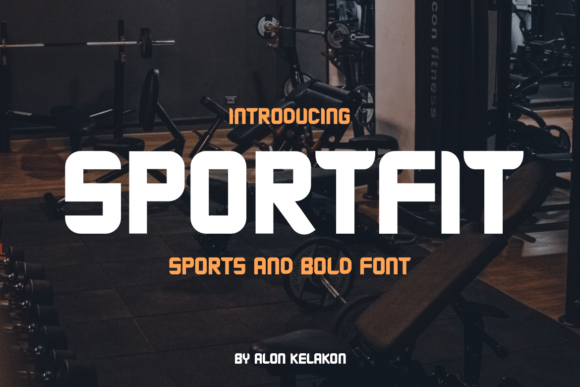
Explore the World of Sportfit Font: The Epitome of Boldness and Assertiveness
Embark on a typographic journey with Sportfit Font, a sans serif font that exudes boldness and assertiveness. Crafted by the skilled hands of alonkelakon, this font is not just a collection of letters; it's a statement of confidence and individuality. Whether you're designing logos for sports teams, creating posters for adrenaline-fueled events, or crafting headlines that demand attention, Sportfit Font is your ultimate weapon.
Unleash the Power of Sans Serif: A Timeless Aesthetic
With its clean lines and geometric precision, Sportfit Font embodies the essence of sans serif typography. Its sharp angles and unwavering structure convey a sense of stability and strength, making it the perfect choice for conveying messages with impact. Whether you're targeting a sports audience or simply seeking a font that exudes confidence, Sportfit Font delivers.
Elevate Your Designs with Limitless Versatility
Sportfit Font is not confined to the world of sports. Its versatility extends far beyond the boundaries of athleticism, making it an asset to any creative project. From sleek and modern logos to eye-catching posters and captivating headlines, Sportfit Font has the power to amplify your message and make it resonate with your audience. Its adaptability knows no bounds, allowing you to explore a vast spectrum of design possibilities.
Ignite Your Creativity with Endless Possibilities
With Sportfit Font at your disposal, your creativity will ignite like never before. This font is a catalyst for innovation, propelling your designs to new heights of excellence. Let your imagination run wild as you explore the boundless opportunities that Sportfit Font presents. From dynamic logos that capture the essence of motion to bold headlines that command attention, the possibilities are endless.
Experience the Sportfit Difference: A Font that Empowers
Sportfit Font is more than just a font; it's an experience. It's a tool that empowers you to express yourself with unwavering confidence and individuality. Whether you're a seasoned designer or just starting your creative journey, Sportfit Font is your ally, guiding you towards design excellence. Embrace the power of this remarkable font and watch as your creations transform into masterpieces that captivate and inspire.